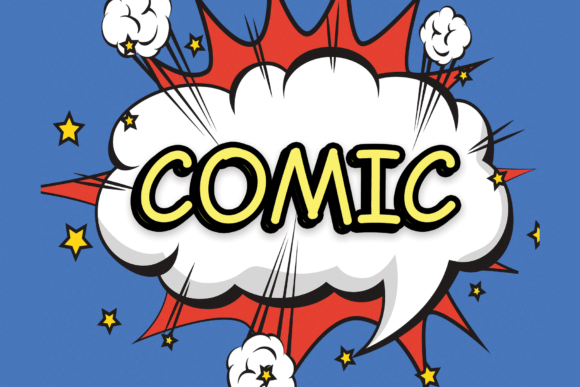
Introducing Comic Font, the perfect font for adding a touch of beauty and charm to your designs. Created by el hotcig, this cool and friendly display font is sure to captivate your audience and make your creations shine.
Are you looking to create cartoon-related designs that will bring a smile to everyone's face? Comic Font is the answer! With its playful and lively appearance, this font will instantly transport your audience into a world of imagination and joy. Whether you're designing children's games, storybooks, or animated logos, Comic Font will add that extra spark of creativity.
But that's not all! Comic Font is also ideal for quotes and titles that need to make a statement. Its unique and eye-catching style will grab attention and leave a lasting impression on your readers. Imagine the impact your inspirational quotes, motivational posters, or catchy taglines will have when presented in this captivating font.
Looking to establish a strong brand presence? Comic Font is the perfect choice for brand names and logos. Its friendly and approachable nature will create an instant connection with your target audience, making your brand more relatable and memorable. Stand out from the crowd and leave a lasting impression with a font that truly speaks to your brand's personality.
Book covers and posters also benefit greatly from Comic Font's versatility. Whether you're designing a children's book cover, a comic strip, or a vibrant movie poster, this font will bring your visuals to life. Its playful curves and artistic flair will make your designs pop and instantly grab attention.
Comic Font is a must-have for any creative mind. Its wide range of applications and its ability to evoke emotions make it a valuable asset to any designer. Don't miss out on the opportunity to elevate your designs and make them truly unforgettable!